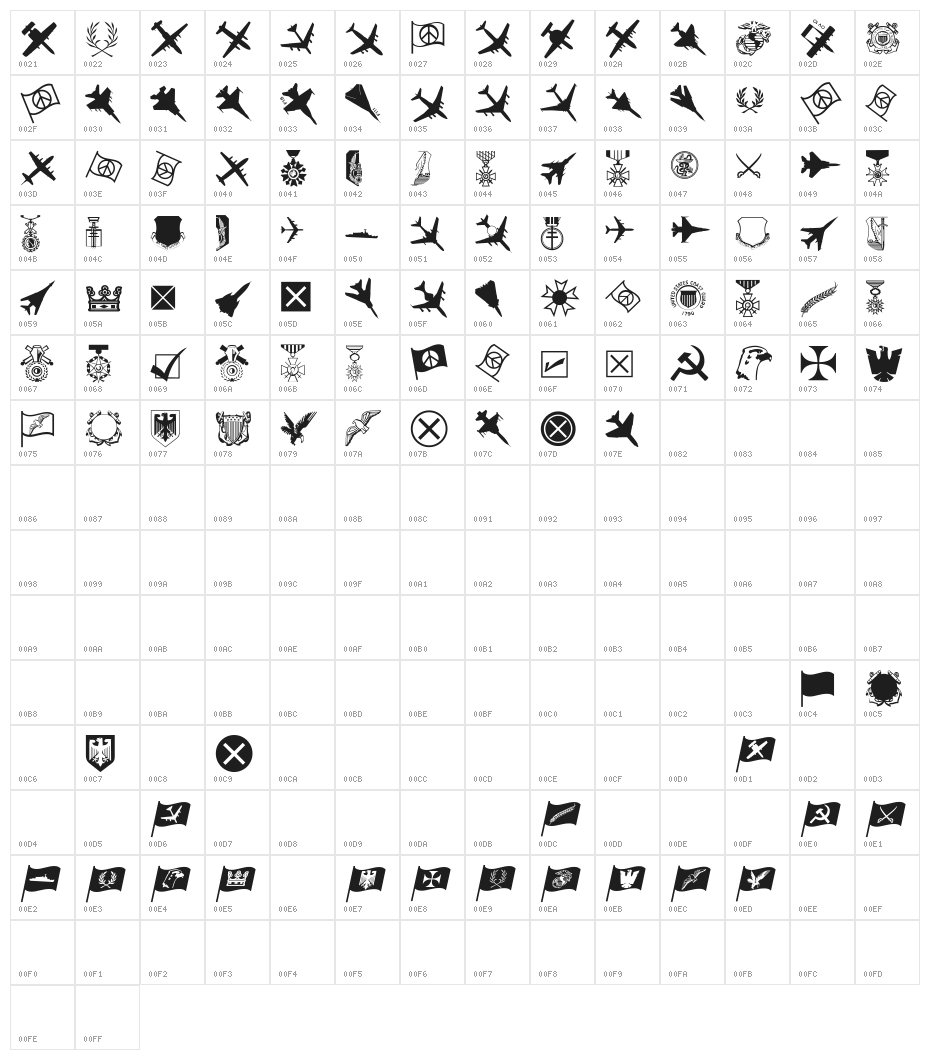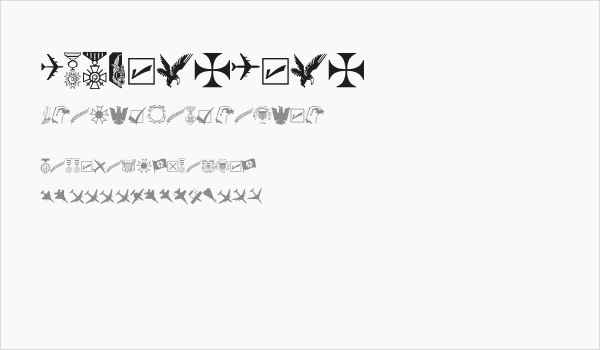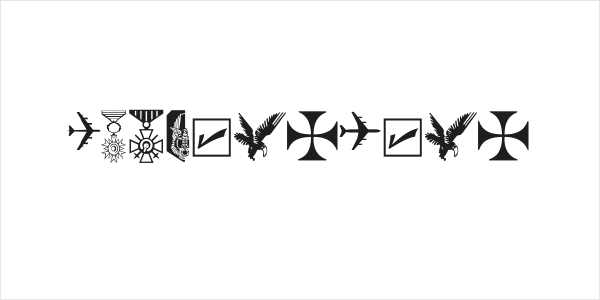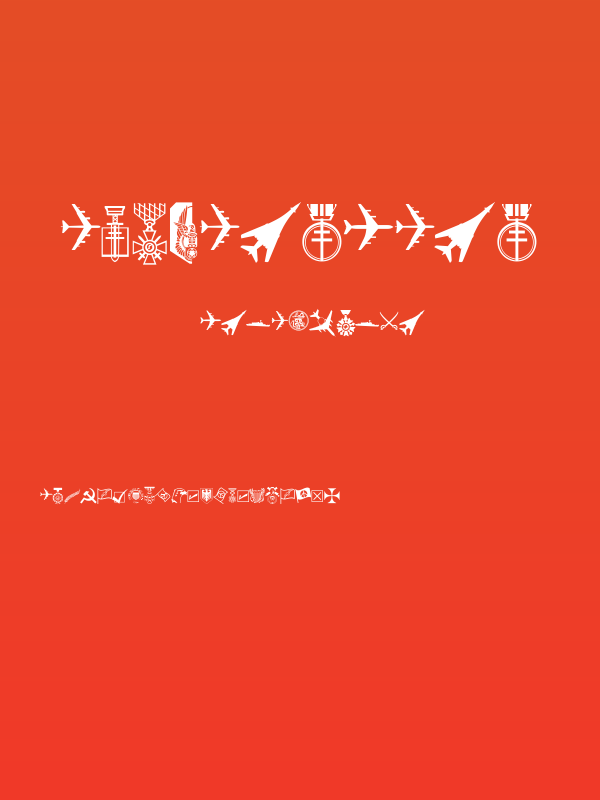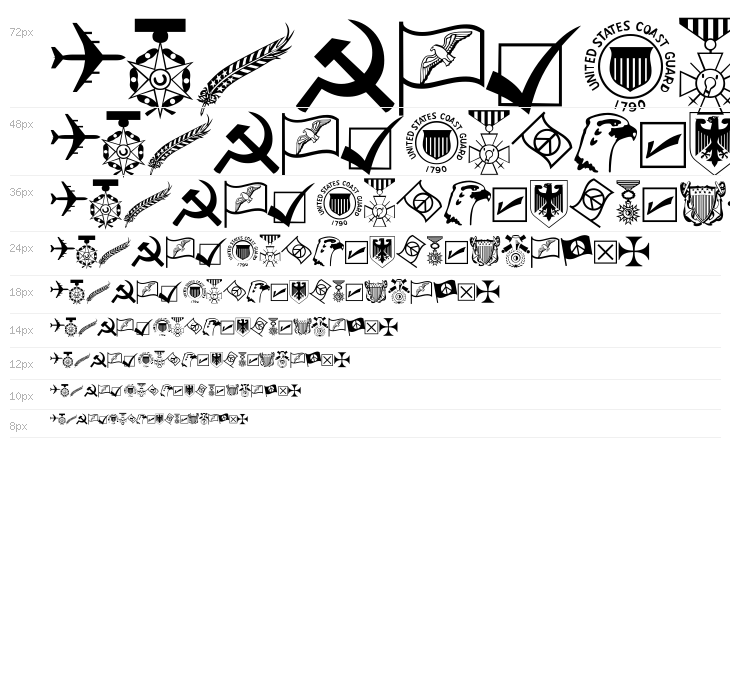
OldBoysToys Font
A decorative dingbat font featuring military-themed icons such as airplanes, medals, shields, insignias, peace symbols, and various emblems, all rendered in bold, high-contrast black silhouettes.
Overall StyleDecorative, Thematic, Military
Use CaseIcons, Decorative elements, Themed graphics
Proposed ProjectsPosters, themed event invitations, educational materials, military memorabilia, scrapbooking, and graphic design projects requiring military or aviation motifs.